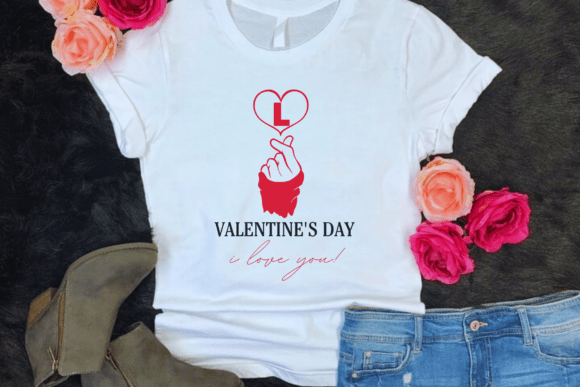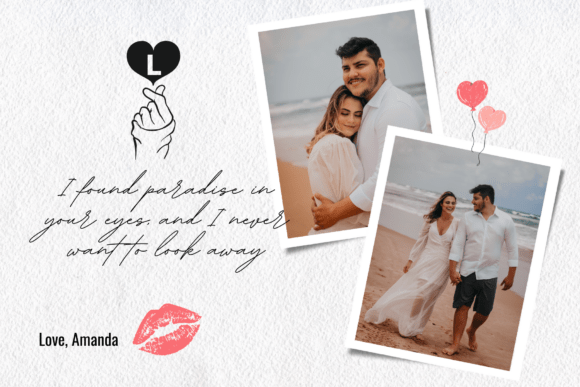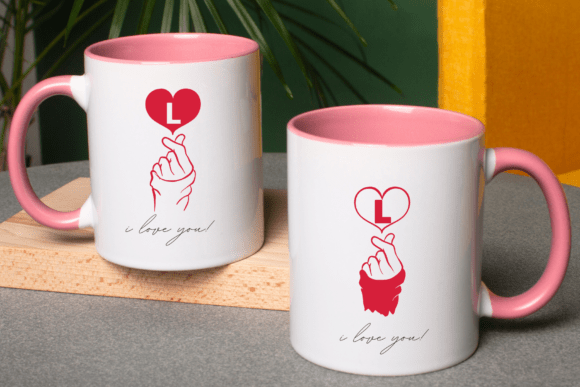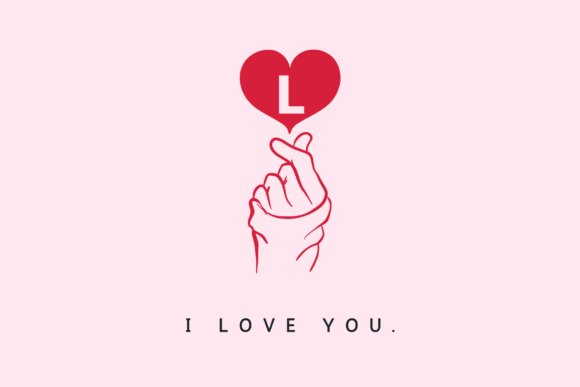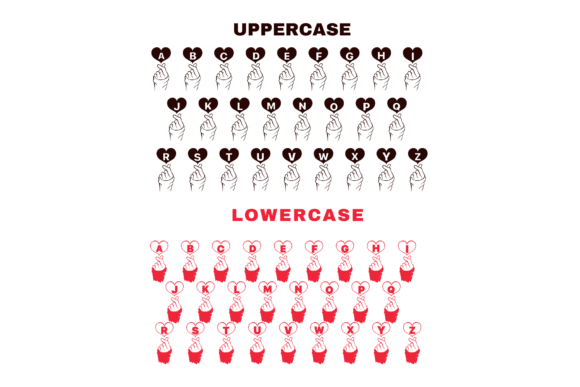
Introduction to Finger Heart Alphabet Font Font
Fonts play a crucial role in design, and the Finger Heart Alphabet Font font is a typeface that brings both character and versatility to any project. Whether you’re working on a branding project, a website, or a print design, the Finger Heart Alphabet Font font offers a unique style that can elevate your work.
Finger Heart Alphabet is a cute and playful decorative alphabet inspired by the popular finger heart gesture.
Each letter AβZ features a charming heart design combined with hand illustration, making it perfect for love-themed projects Ideal for Valentineβs Day, wedding designs, stickers, crafts, logos, apparel, mugs, cards, and personalized gifts.
Key Features of Finger Heart Alphabet Font Font
Why Choose Finger Heart Alphabet Font Font?
The Finger Heart Alphabet Font font is more than just a typeface β it’s a design tool that helps you communicate your message with style and clarity. Its unique character set and versatile design make it suitable for a wide range of applications, from elegant invitations to bold headlines.
With its carefully crafted letterforms and balanced proportions, the Finger Heart Alphabet Font font ensures readability and visual appeal across all mediums.
What makes Finger Heart Alphabet Font font special?
The Finger Heart Alphabet Font font stands out with its unique design, exceptional readability, and versatility across various design applications.